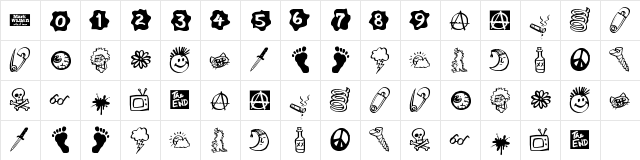
MW Ding-A-Lings Regular
Design Context for MW Ding-A-Lings Typeface
MW Ding-A-Lings is a composed and adaptable typeface that performs quietly and consistently across a wide range of design contexts.